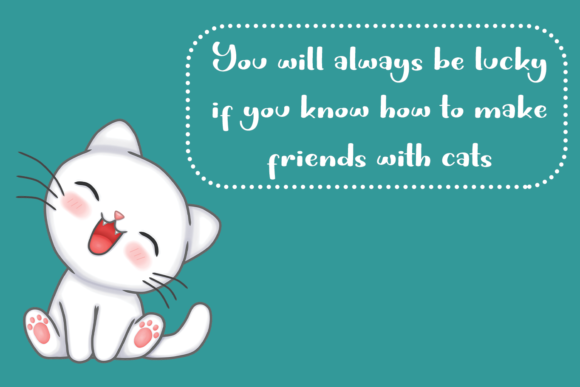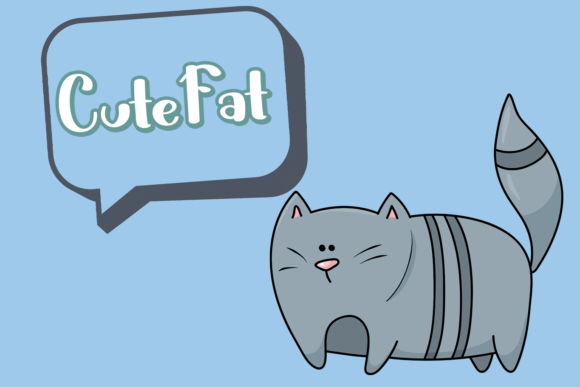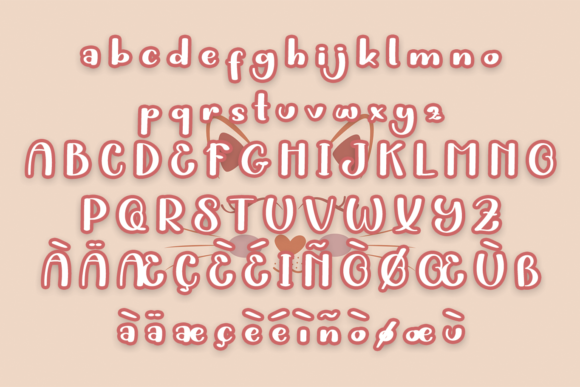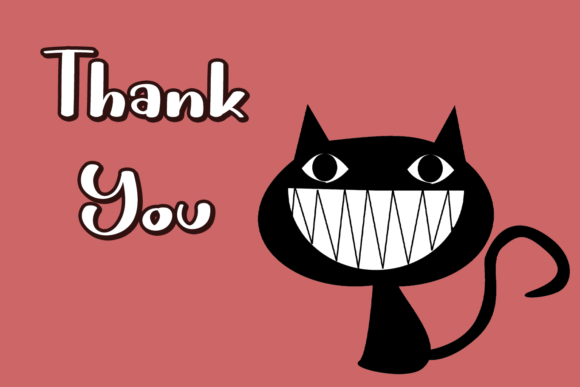
About Sweet Kitty Font
Sweet Kitty is a playful script font carefully created with a touch of magic. Whether you’re looking for fonts for Instagram or calligraphy scripts for DIY projects, this font will turn any creative idea into a true piece of art!